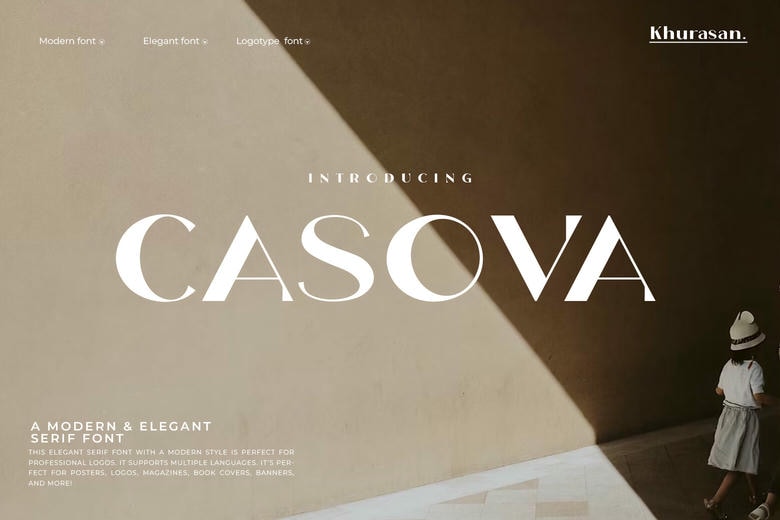
Casova Font
Casova is a refined and elegant serif typeface designed with confidence and prestige to the typographer. Having smooth contrast, sharp edges and flawless proportions, the typeface combines the elements of traditional elegance and modernism.
The outcome is high-end, high-class, and editorial font that is perfect in branding, logos, fashion projects, invitations, websites, and high-end social media images. All curves provide clarity and beauty, and the aesthetics provided by them are high-end and thus instantly enhance any design.
Bold titles or embedded into the sleek designs, one way or another, Casova gives your creative work an inimitable touch of sophistication.
Casova Serif Font